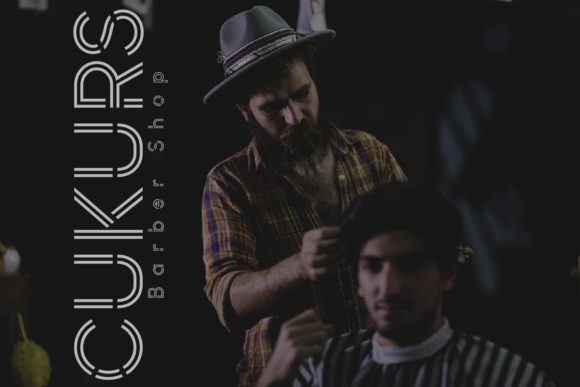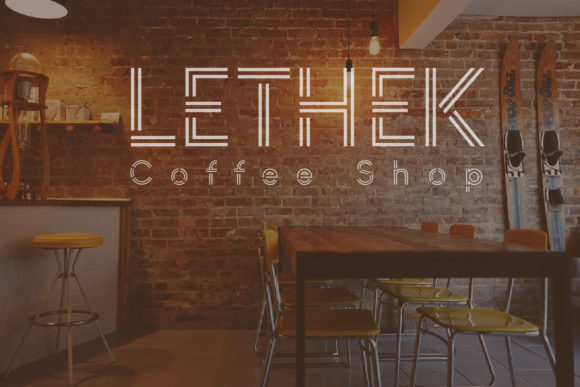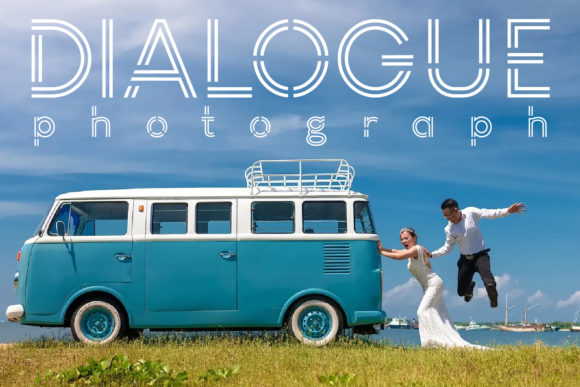
Fosfor Font: The Ultimate Display Font for Creative Projects
Are you tired of using the same old fonts for your creative projects? Look no further than Fosfor Font, a fresh and unique display font that’s perfect for making a statement. Whether you’re designing a cover, magazine, t-shirt, poster, billboard, or any other visual project, Fosfor Font is the ideal choice.
What is Fosfor Font?
Fosfor Font is a modern and eye-catching display font that’s designed to grab attention. Its unique and stylish lettering makes it perfect for creative projects that require a bold and striking look. The font is versatile and can be used for a wide range of applications, from print materials to digital designs.
Key Features of Fosfor Font
- Unique and Fresh Design: Fosfor Font boasts a one-of-a-kind design that’s sure to make your project stand out from the crowd.
- Highly Versatile: This font is suitable for various needs, including covers, magazines, t-shirts, posters, billboards, and more.
- Easily Readable: Despite its bold and stylized design, Fosfor Font remains easily readable, making it perfect for headlines and titles.
- Scalable: The font is designed to be scalable, ensuring that it looks great in any size or resolution.
Use Cases for Fosfor Font
Fosfor Font is an incredibly versatile font that can be used for a wide range of creative projects. Here are some use cases to get you started:
- Covers and Magazines: Use Fosfor Font to create eye-catching covers and headlines for your magazine or publication.
- T-Shirts and Merchandise: Design bold and stylish t-shirts, hoodies, and other merchandise with Fosfor Font.
- Posters and Billboards: Make a statement with Fosfor Font on your posters and billboards.
- Digital Designs: Use Fosfor Font in your digital designs, such as social media graphics, website headers, and more.
Why Choose Fosfor Font?
With so many fonts available, why choose Fosfor Font? Here are a few reasons:
- Unique Design: Fosfor Font offers a fresh and unique design that’s sure to make your project stand out.
- Time-Saving: With Fosfor Font, you can create professional-looking designs in no time, saving you time and effort.
Tips for Using Fosfor Font
Here are a few tips for getting the most out of Fosfor Font:
- Experiment with Sizes and Colors: Don’t be afraid to experiment with different sizes and colors to find the perfect combination for your project.
- Pair with Other Fonts: Pair Fosfor Font with other fonts to create a unique and visually appealing design.
- Use for Headlines and Titles: Fosfor Font is perfect for headlines and titles, so be sure to use it to make a statement.
Fosfor Font is a fresh and unique display font that’s perfect for creative projects. Its versatility, readability, and scalability make it an ideal choice for designers and crafters. Whether you’re designing a cover, magazine, t-shirt, poster, billboard, or any other visual project, Fosfor Font is the perfect choice. So why wait? Download Fosfor Font today and take your designs to the next level!